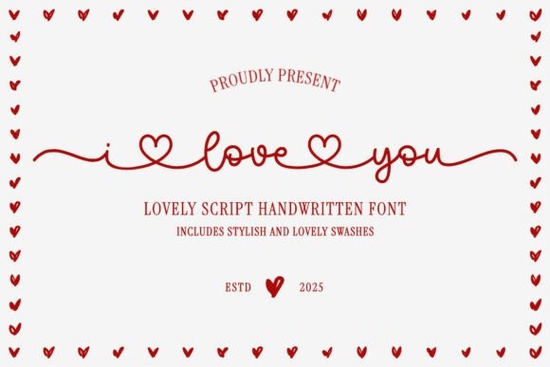
What makes the I Love You Font stand out from other script fonts?
Many script fonts look pretty, but not all connect so thoughtfully. Here the ligatures do more than link letters they weave little hearts into the joins. You’ll notice subtle washes at the start and end of each character, giving the text a soft, brush-pen texture. The alternates include swashes shaped like tiny hearts, so when you type a word like “forever,” the double ‘e’ or ‘r’ can carry an extra romantic loop. This is not just a cursive font; it’s built for moments that call for affection and warmth.
Can you use this font with Cricut and cutting machines?
Yes, and that’s one reason crafters bookmark it. The I Love You Font works smoothly in Cricut Design Space, Silhouette Studio, and other cutting software. Because the letters are cleanly designed with a moderate stroke weight, you won’t struggle with thin hairlines that tear when weeding vinyl. For cardstock projects, the solid shapes cut cleanly and maintain the delicate heart details even at smaller sizes. Many users layer it with a slight offset when creating iron-on decals for pillows or tote bags.
Does this font include extra characters and language support?
It includes a standard set of uppercase and lowercase letters, numerals, common punctuation, and the heart-shaped alternates. The ligatures are automatically applied in software that supports OpenType features, but you can also access them manually via a glyphs panel or character map. This is especially helpful for programs like Cricut that need you to pull in alternates one by one. While not every diacritic mark is covered, the core Latin characters work well for English, Spanish, French, and similar languages in romantic-themed projects.
What kinds of projects suit a romantic handwritten font like this?
Crafters often turn to the I Love You script when making:
- Wedding invitations and save-the-date cards
- Anniversary party decorations
- Holiday tags for Christmas or Thanksgiving
- Scrapbook titles and journaling cards
- Embroidery hoop art with heart embellishments
- Praise tags, wedding vow prints, and bridal shower banners
The heart-connected ligatures shine in short words like “love,” “joy,” “home,” or the couple’s names. If you are a print-on-demand seller, consider using it for mug designs or Valentine’s Day collections where the handwritten warmth translates well onto ceramic and apparel.
How does this font handle longer text can you use it for body copy?
Why do crafters keep coming back to heart-themed script fonts?
Beyond the obvious romantic holidays, heart motifs add a timeless, tender vibe to everyday projects. A mother making a scrapbook page for a child’s birthday, a baker designing cookie packaging, or a teacher creating encouragement notes they all want a personal touch that feels handwritten, not typed. The subtle heart ligatures in this font feel more integrated than clip-art hearts stuck next to text. That integration makes the finished piece look curated, not messy.
When you want your lettering to feel like it was written just for the recipient, this handwritten font delivers. Give it a try on your next design and watch those small heart details draw genuine smiles.